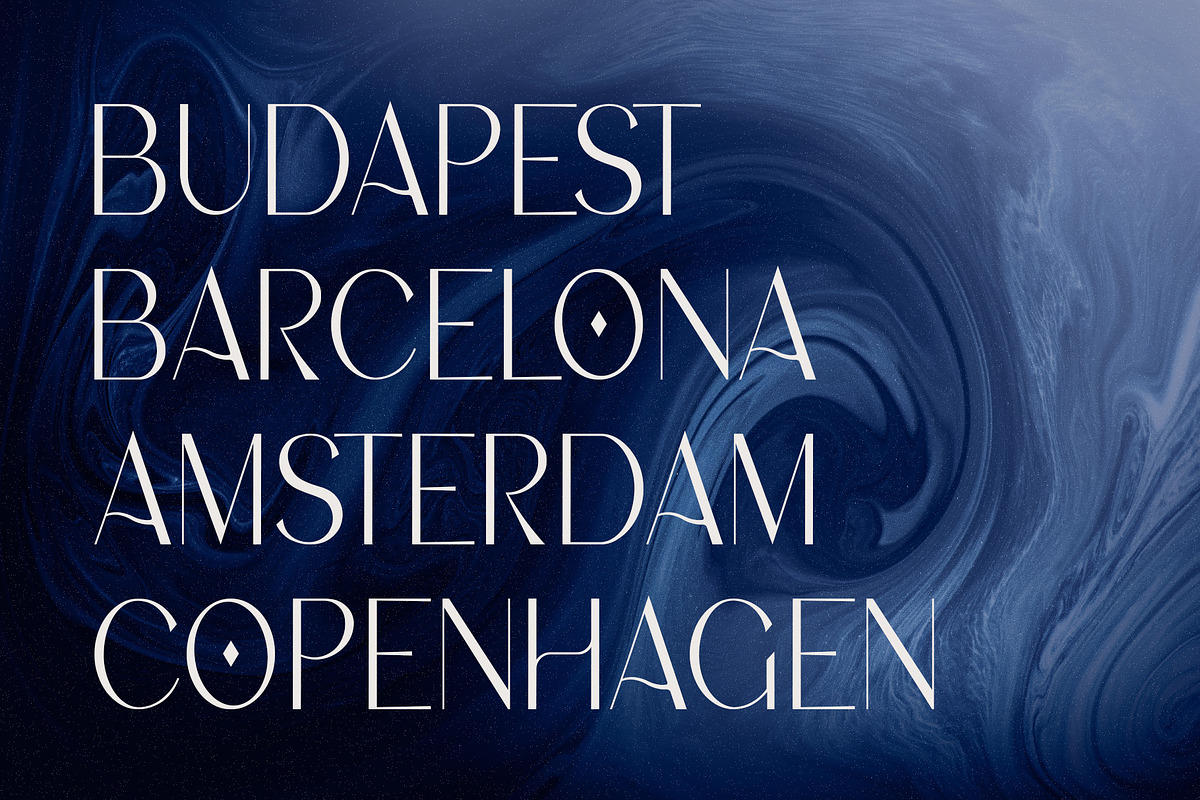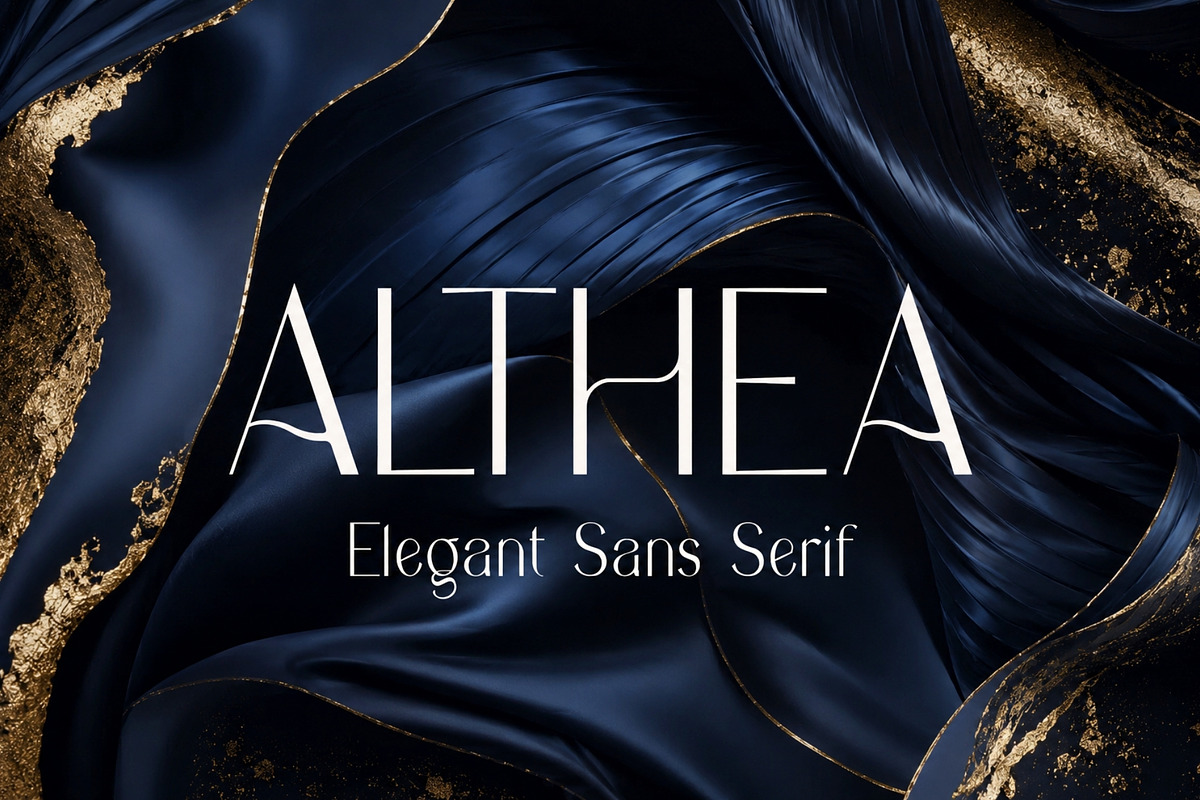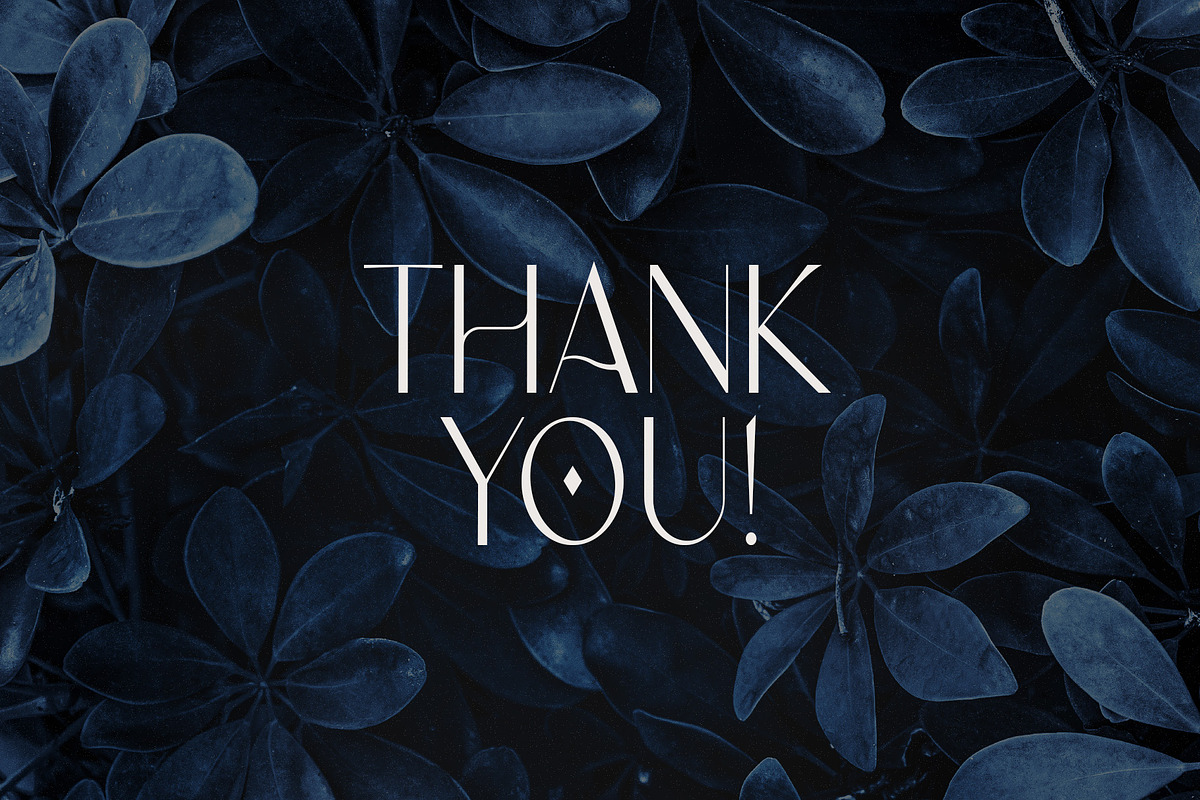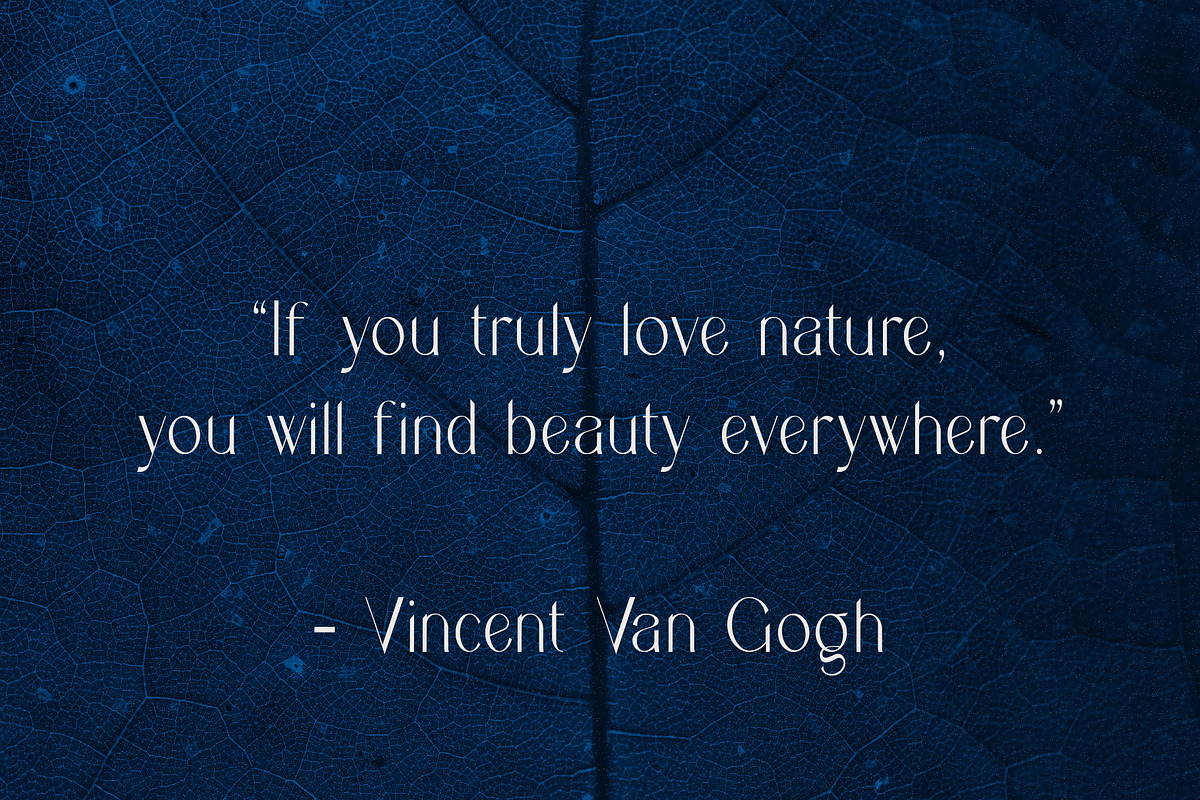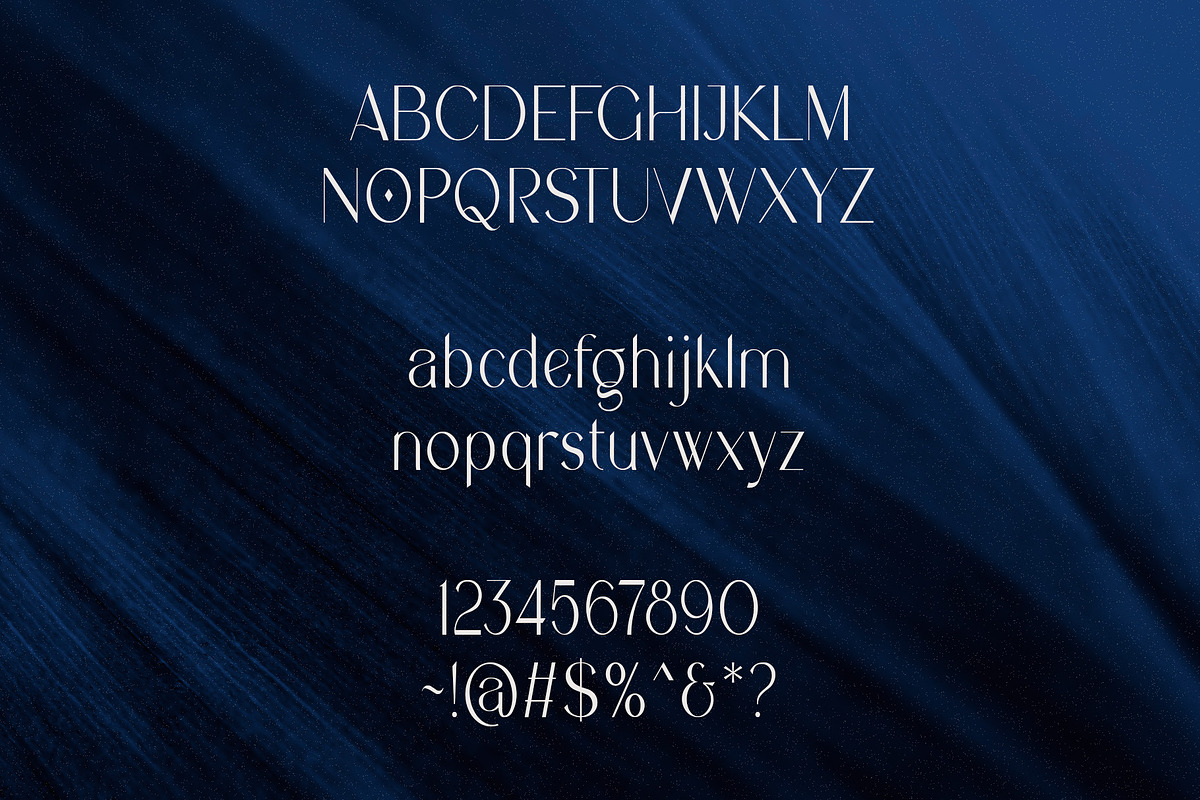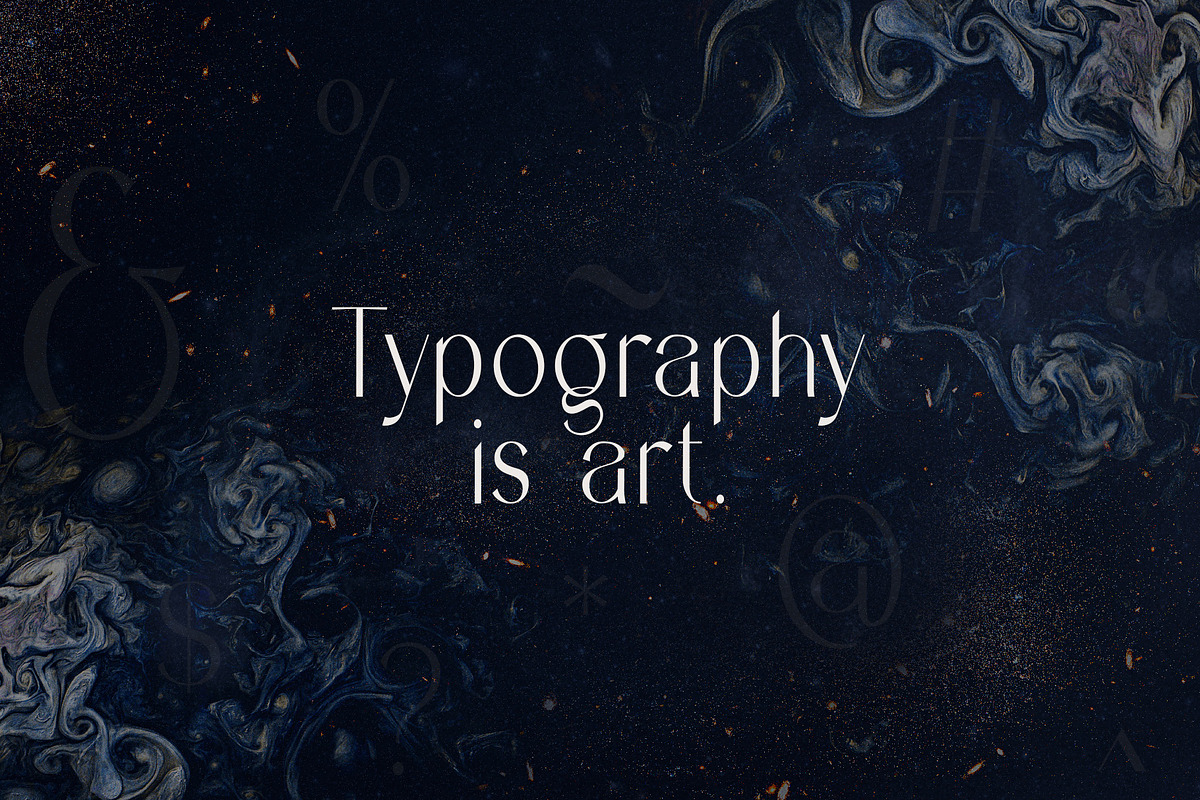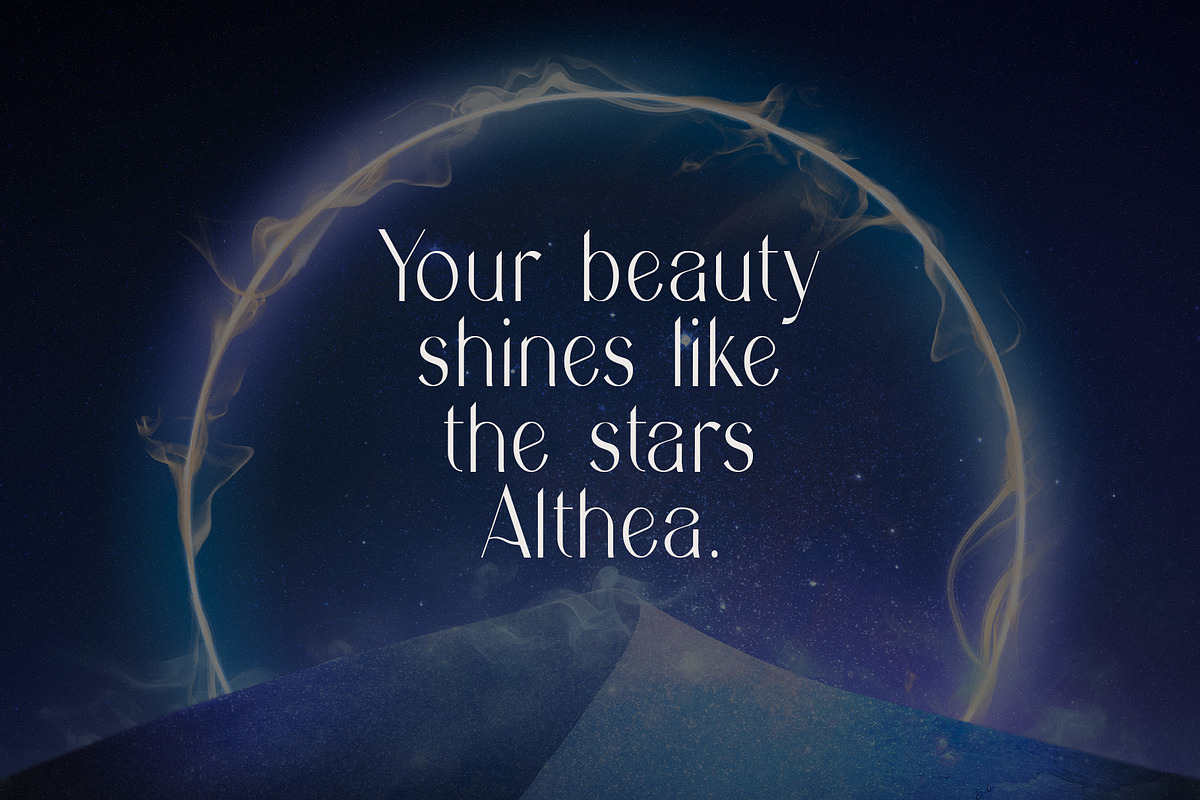
Althea - Elegant Sans Serif
Althea is a modern sans serif typeface suitable for branding, packaging, invitations, quotes, labels, posters, social media, magazines etc. Althea's sharp angles will give your fashion designs a clean and unique look. If you're looking for a typeface with a touch of elegance, style, and class, then Althea is for you!